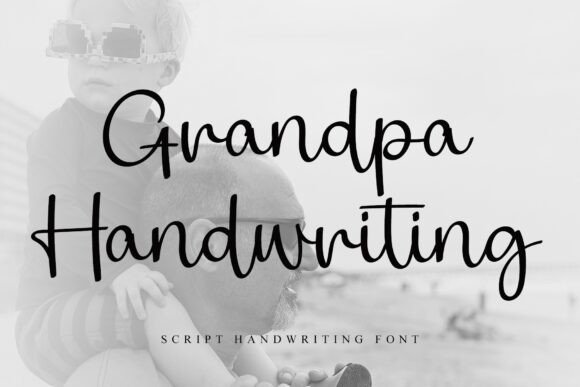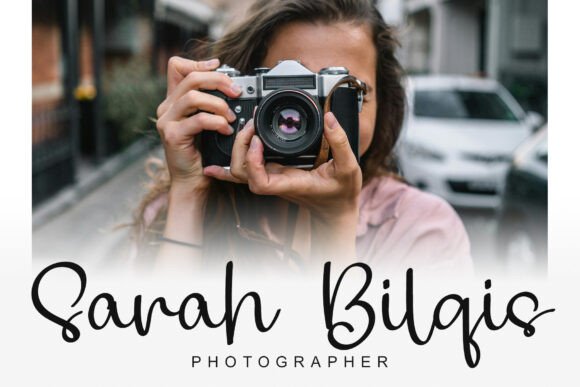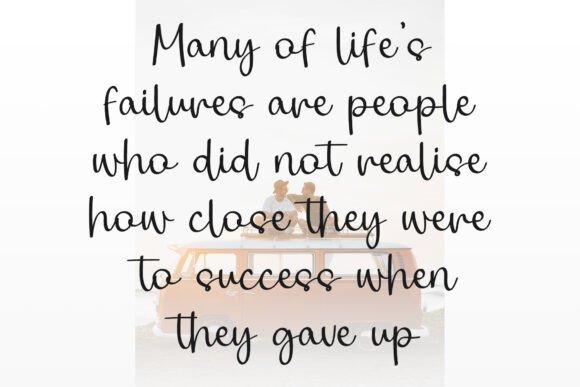
Grandpa Handwriting Font
About the Grandpa Handwriting Font
Discover the charm of Grandpa Handwriting Font. This font is a perfect blend of modern aesthetics and classic appeal. Grandpa Handwriting is a font that exudes class, combining the beauty of script handwriting with a bold and timeless vintage touch. With its fluid strokes, graceful curves, and dynamic flow, this font is perfect for creating a sophisticated yet powerful impression. Whether you need a stylish signature, branding design, or nostalgic vintage aesthetics, Realistic Vintage delivers elegance and uniqueness effortlessly.
Grandpa Handwriting excels in headlines, short text blocks, and branding applications where a touch of vintage elegance is desired. Its unique character shines in logos, invitations, and packaging design for premium products. However, its highly decorative nature makes it unsuitable for body copy or UI elements; extended use would severely impair readability.
This font’s personality is best described as sophisticated and nostalgic, conveying a sense of timeless quality and charm. Pairing it with a clean sans-serif like Open Sans for body text creates a balanced contrast, while a geometric sans-serif like Futura provides a modern counterpoint. For a more traditional feel, consider pairing it with a classic serif such as Garamond.
For projects aiming for a vintage, handcrafted aesthetic, Grandpa Handwriting offers an excellent choice. Brands focusing on heritage, luxury goods, or artisanal products would find it particularly effective.
Grandpa Handwriting Font Usage Examples
Grandpa Handwriting Font Example